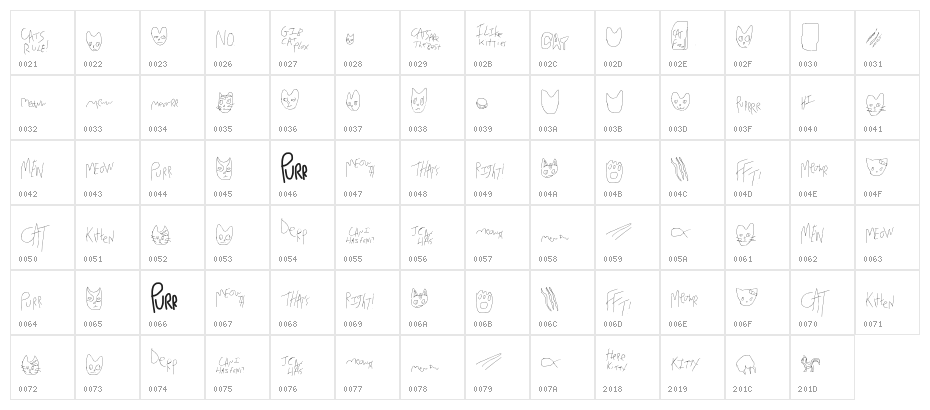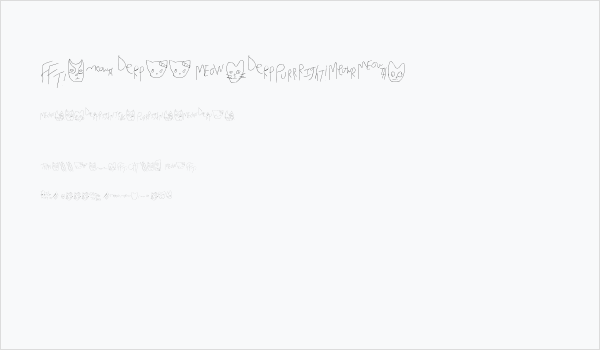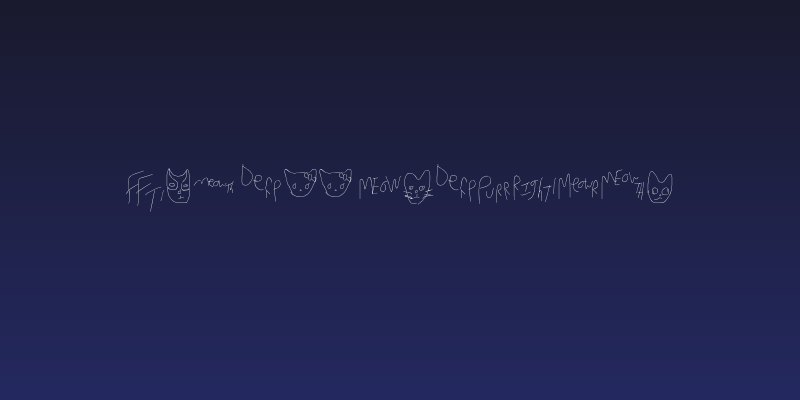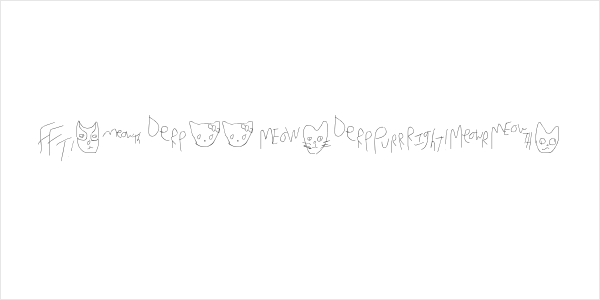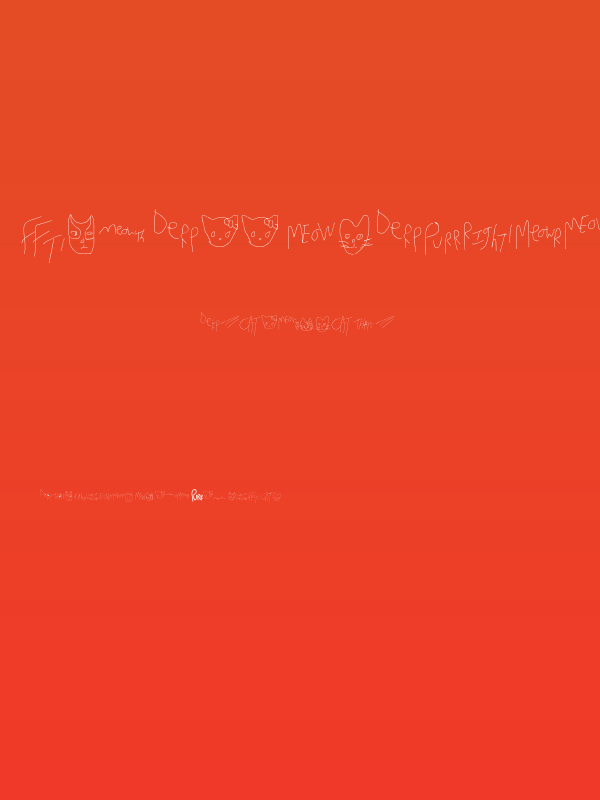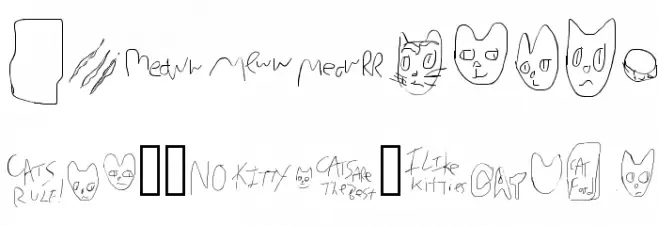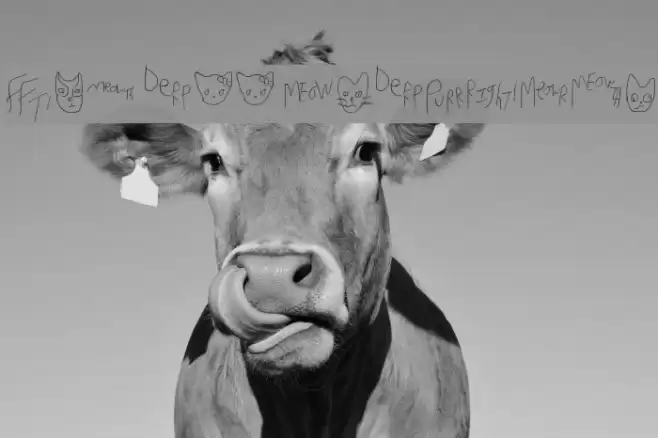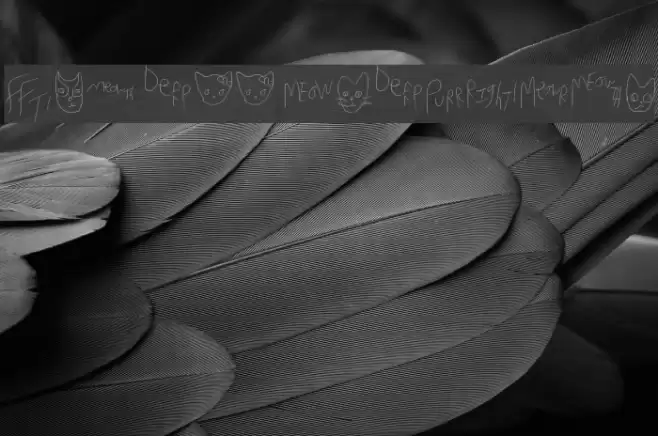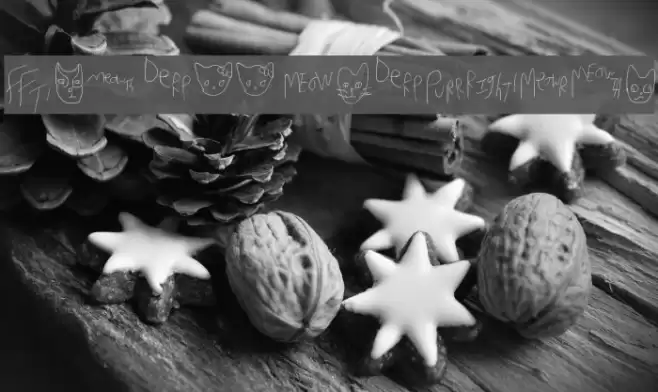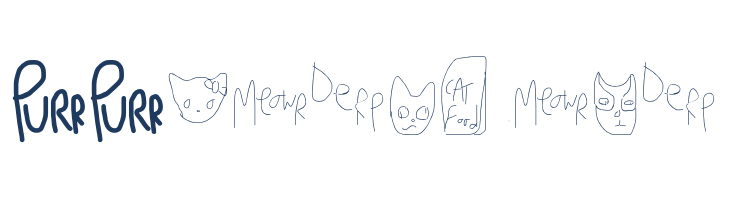
Mew Too CatDings Font
This font is a playful and whimsical collection of cat-themed doodles and phrases. It features a variety of hand-drawn cat faces, paws, and playful words like 'Meow', 'Purr', and 'Cat'. The style is informal and sketch-like, with a mix of thin and bold strokes that add to its quirky charm. The characters are not uniform, giving it a spontaneous and lively feel. It's perfect for projects that aim to convey a sense of fun and creativity, especially those related to cats or animals.
| Overall Style | Whimsical, Playful |
| Use Case | Logos, Posters, Greeting Cards |
| Proposed Projects | Ideal for children's books, pet-related branding, playful greeting cards, and whimsical posters. |